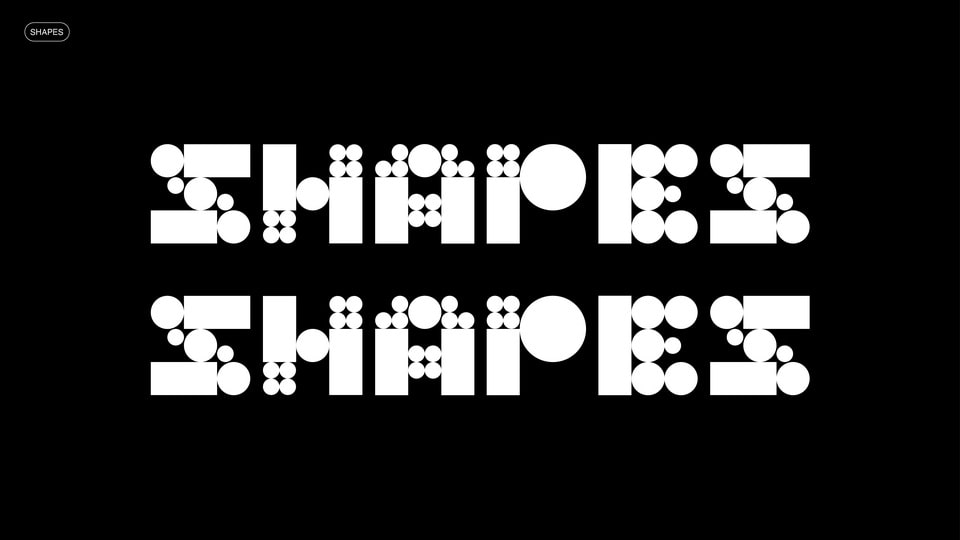
Download Shapes font, a fantasy geometric typeface designed to be used as a display font. With its modular structure Shapes font is perfect for posters, graphic artworks, typography patterns.
Designer: Andrea Siracusa